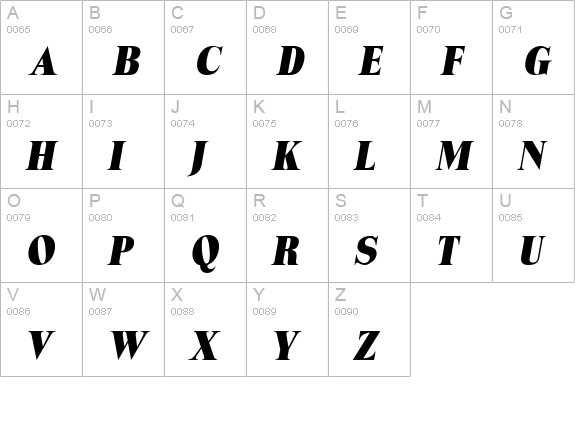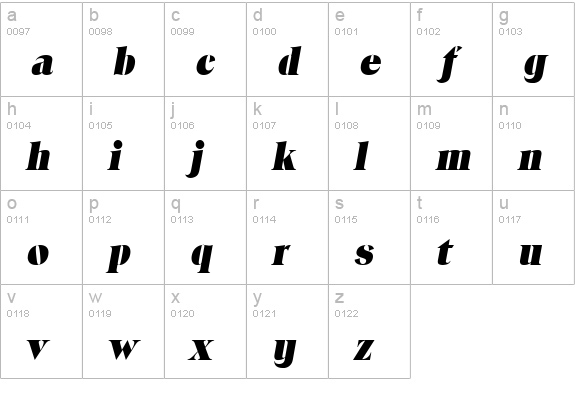
Locura Display SSi Italic Font Details
Locura Display SSi Italic is a distinctive, italic variant in the Locura typeface family \xE2\x80\x94 well suited to design and typography projects.
Locura Display SSi Italic is a striking and dynamic font that exudes energy and creativity. Its italic style adds a touch of elegance and sophistication to any design project. The fluid curves and sharp angles of this font make it perfect for attention-grabbing headlines, branding materials, and advertising campaigns. What makes Locura Display SSi Italic even more appealing is that it is available for free download at FontsMarket.com. This means you can easily add this unique font to your collection without any cost. Whether you are a designer, a marketer, or simply someone looking to enhance your projects with a bold and modern typeface, Locura Display SSi Italic is a fantastic choice. Download it now and unleash your creativity with this captivating font.